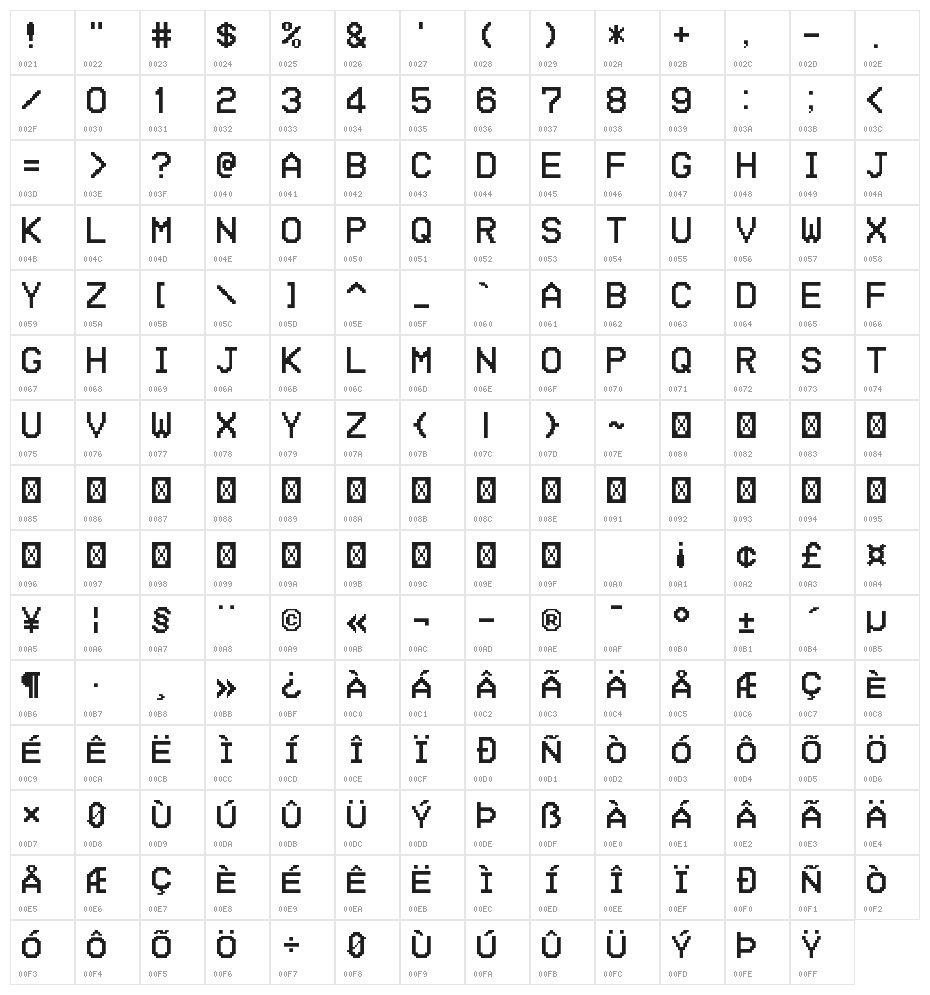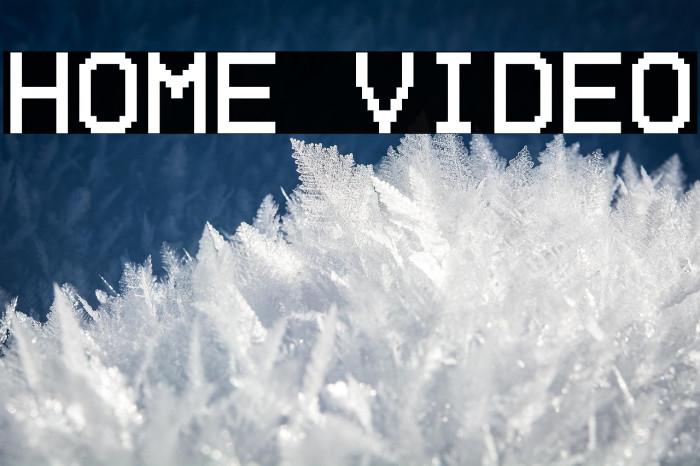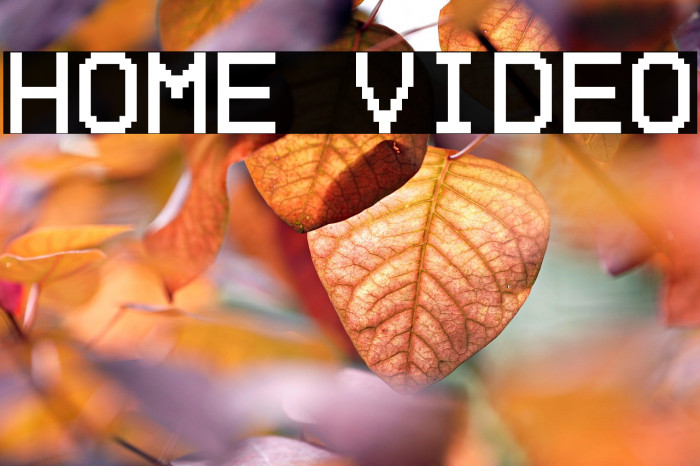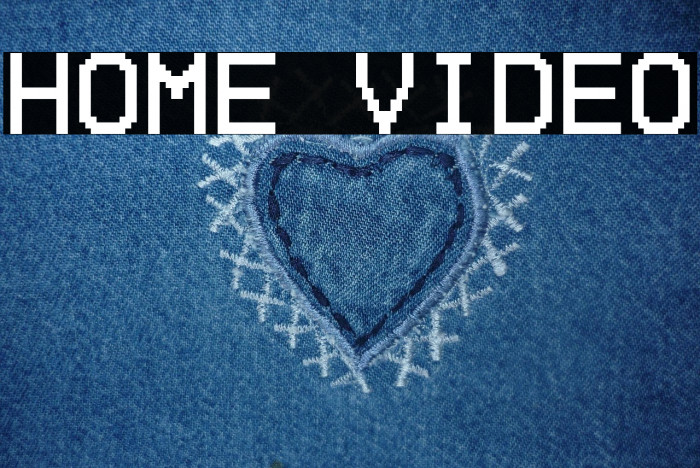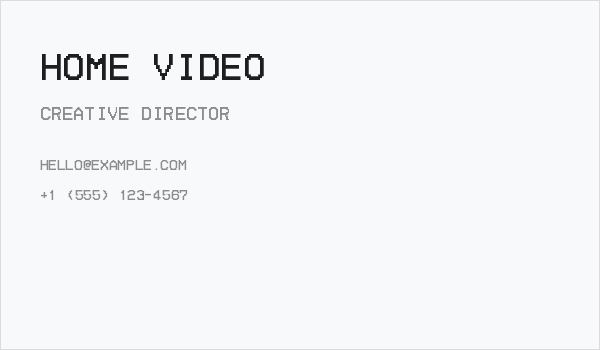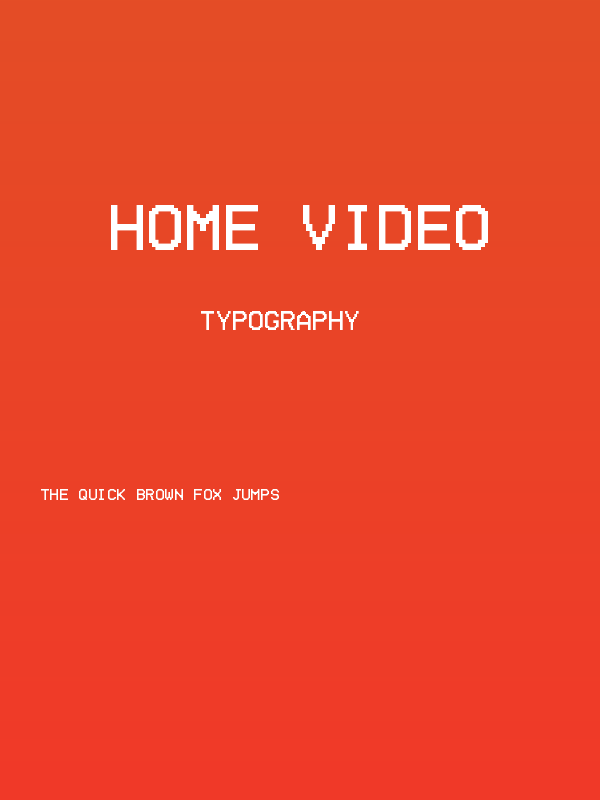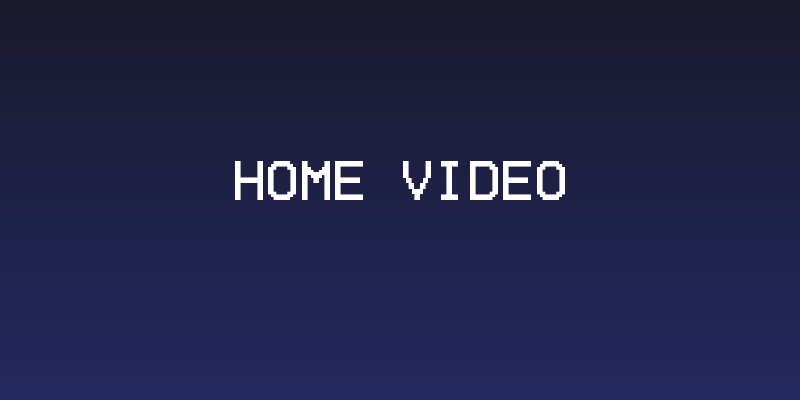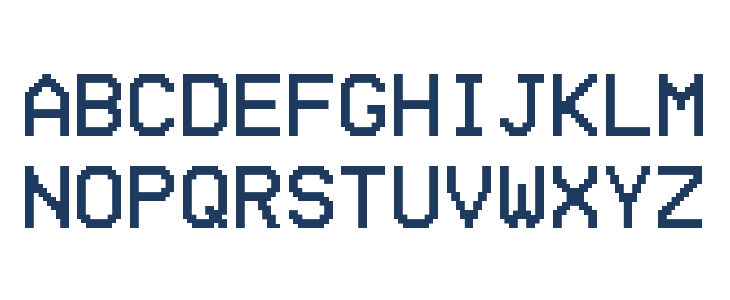
Home Video Font
Home Video Description
This font features a pixelated, blocky style reminiscent of early digital displays and video games. Each character is composed of uniform squares, giving it a distinctly retro and digital aesthetic. The uppercase and lowercase letters maintain a consistent height, contributing to a monospaced appearance. The numbers and special characters follow the same pixelated design, ensuring uniformity across all glyphs. This font evokes a sense of nostalgia, ideal for projects that aim to capture the essence of vintage computing or gaming.
| Overall Style | Vintage |
| Use Case | Logos, Digital Art, Video Game Design |
| Proposed Projects | Ideal for retro video game designs, digital art projects, and any creative work that seeks to evoke nostalgia for early computing and gaming eras. |